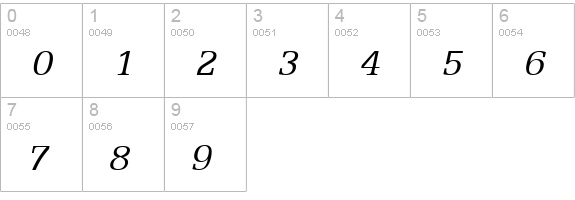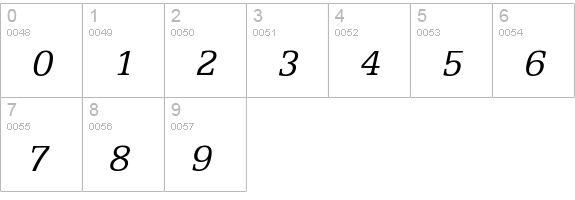
Eggo Italic is a distinctive, italic variant in the Eggo typeface family \xE2\x80\x94 well suited to design and typography projects.
Introducing Eggo Italic font, a sleek and stylish typeface that effortlessly combines elegance with a touch of playfulness. This exquisite font is perfect for adding a unique and sophisticated twist to your designs, whether it be for branding, advertising, or any creative endeavor. Eggo Italic features beautifully curved letterforms with a subtle slant, creating a sense of movement and dynamism. Its smooth and flowing lines exude a sense of modernity and sophistication, making it a versatile choice for a wide range of projects. But what truly sets Eggo Italic apart is its availability. This exceptional font is not only visually captivating, but it is also free to download at FontsMarket.com. Yes, you read that right - it is freely available for your creative endeavors. So why wait? Enhance your designs with Eggo Italic and bring a touch of elegance to your projects today. Whether you're a professional designer looking for a new addition to your font library or a casual user in need of a font that stands out, Eggo Italic is the perfect choice. Download it now at FontsMarket.com and let your creativity soar to new heights.